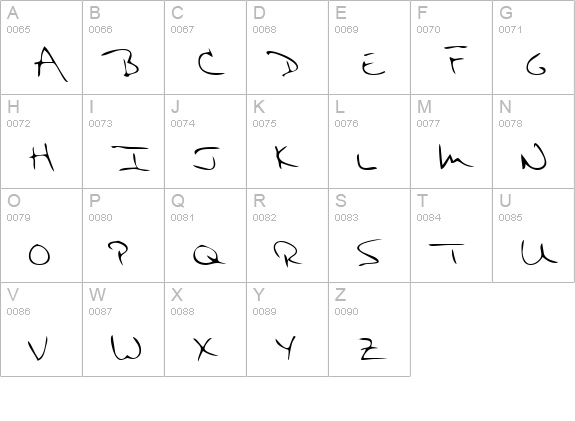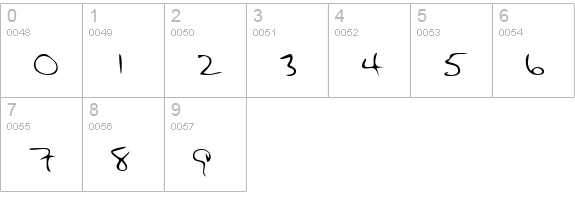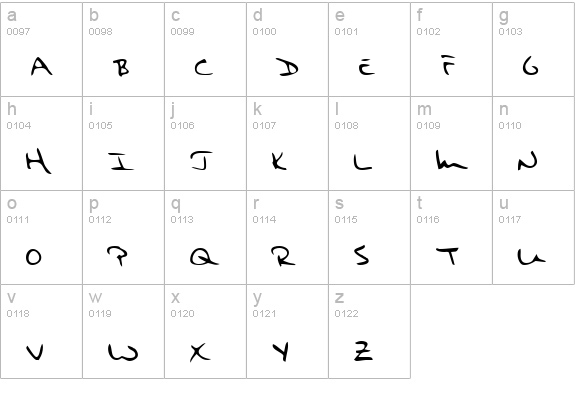
FranksHand Regular Font Details
FranksHand Regular is the standard, neutral variant in the FranksHand typeface family \xE2\x80\x94 well suited to general body text, paragraphs, and standard typographic work.
FranksHand Regular font is a charming and versatile typeface that exudes a sense of warmth and friendliness. With its handwritten style and flowing strokes, this font adds a personal touch to any design project. Whether you're creating invitations, posters, or branding materials, FranksHand Regular is the perfect choice to infuse your work with a unique and inviting vibe. Best of all, FranksHand Regular font is free to download at FontsMarket.com. Embrace the beauty and creativity of this delightful font without any cost. Don't miss out on the opportunity to enhance your designs with the endearing charm of FranksHand Regular. Download it today and let your creativity soar!